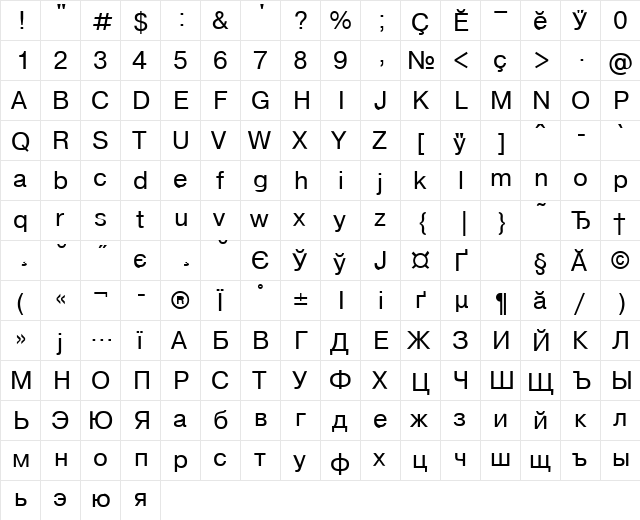
PragmaticaChvFVI Regular
Design Context for PragmaticaChvFVI Typeface
PragmaticaChvFVI offers clean, dependable letterforms without strong stylistic allegiance, making it a practical choice for designers who need flexibility.